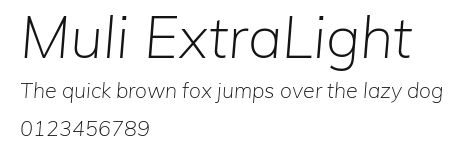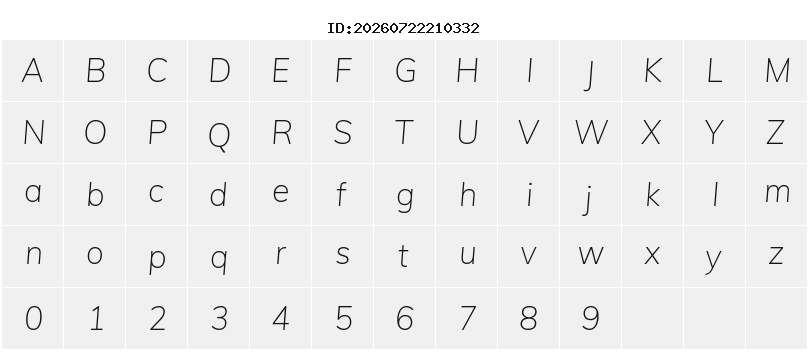
Muli ExtraLight Preview
• Font Name: Muli ExtraLight
• Full Font Name: Muli ExtraLight Italic
• Designer: Vernon Adams
• Manufacturer: Vernon Adams
About Muli ExtraLight.ttf
Muli ExtraLight.ttf is a modern, elegant sans-serif font designed for ultimate readability and visual harmony. Perfect for branding, headlines, web design, and print materials.